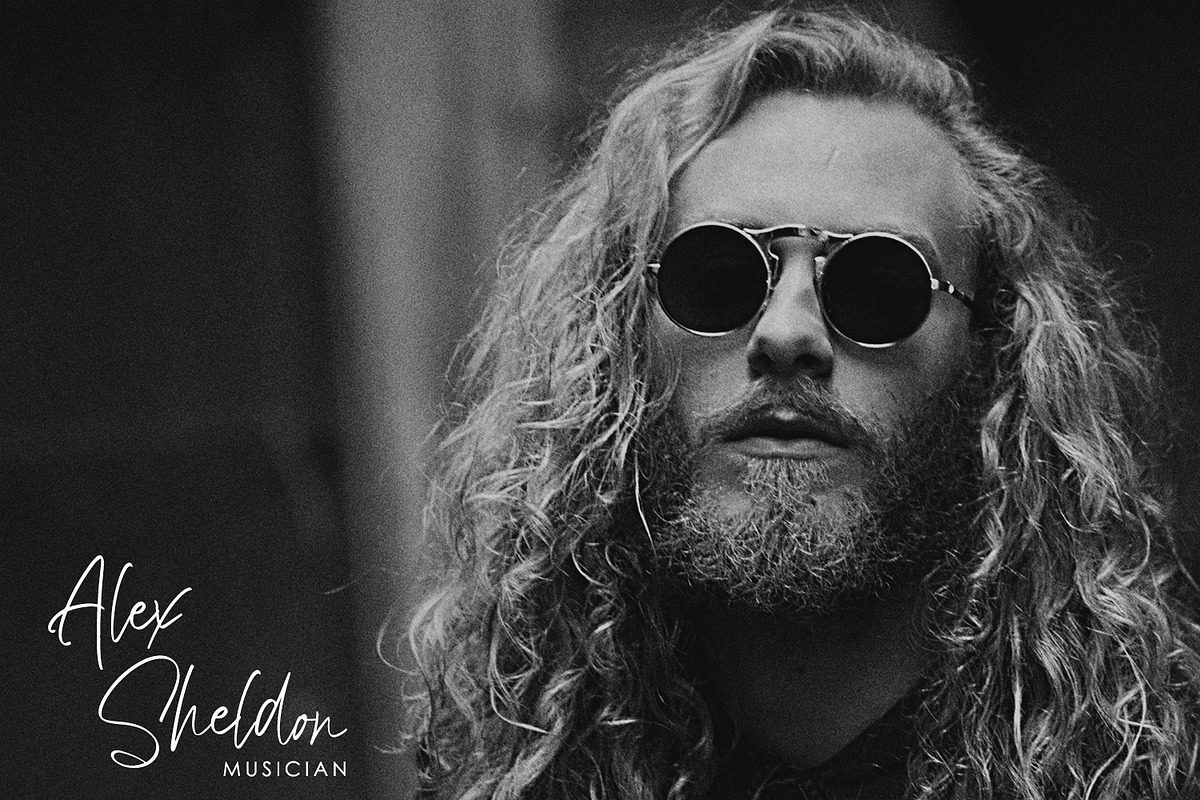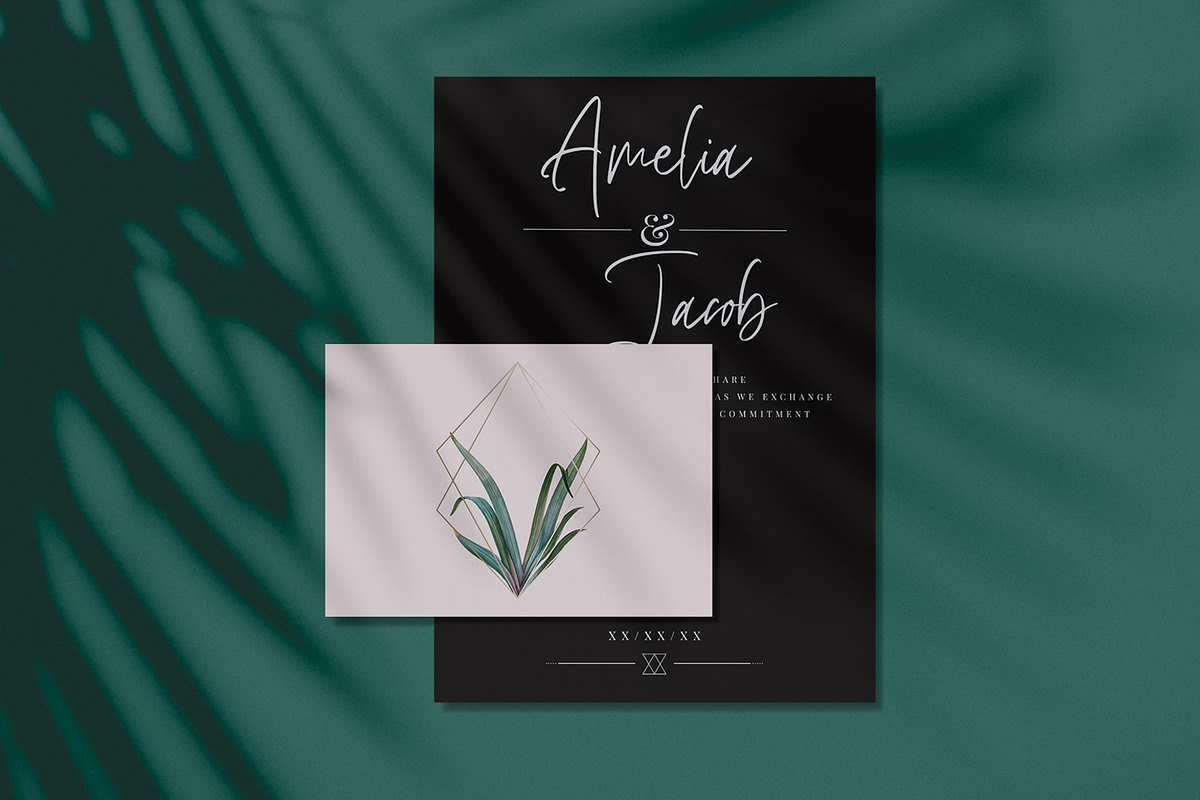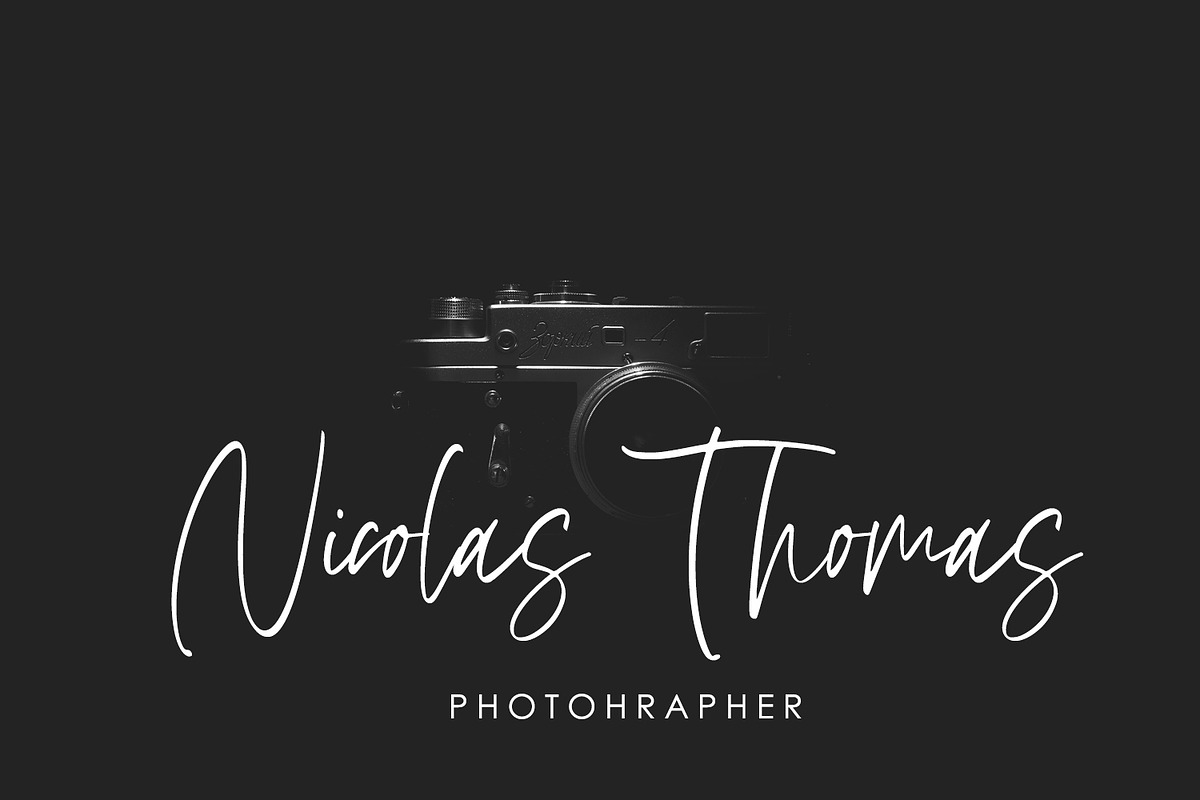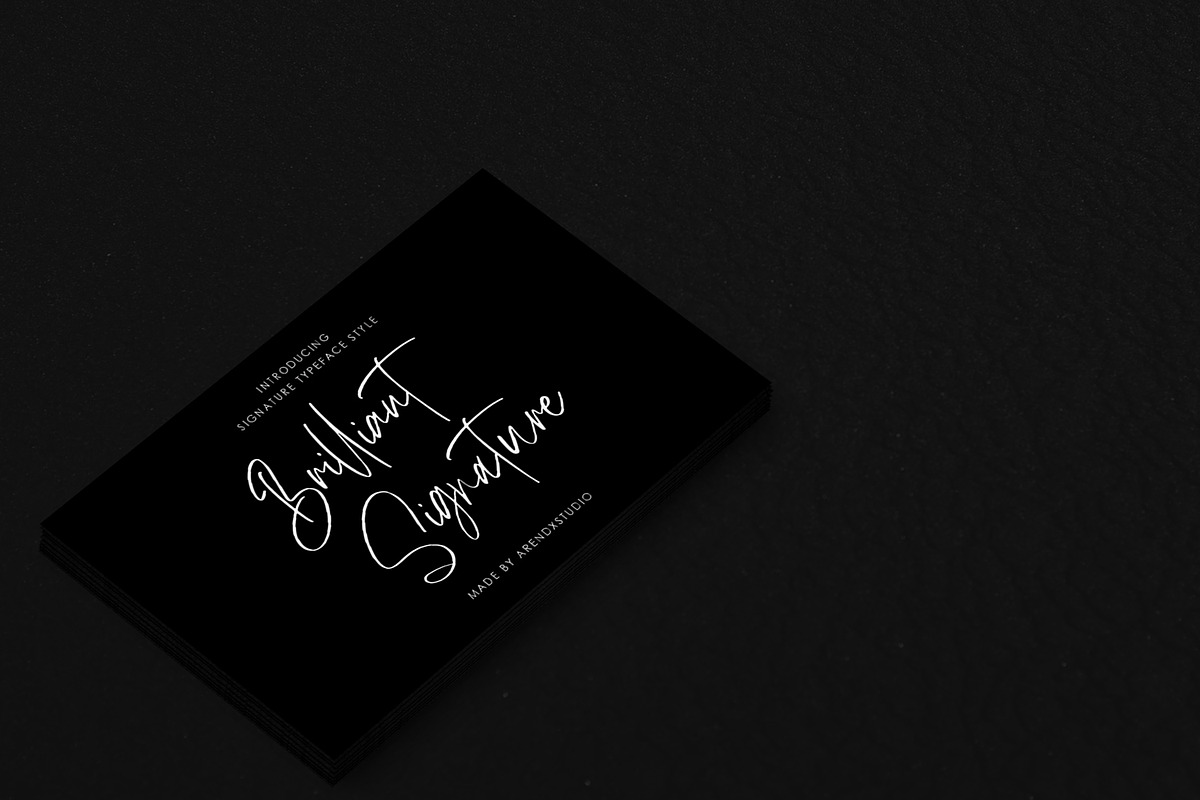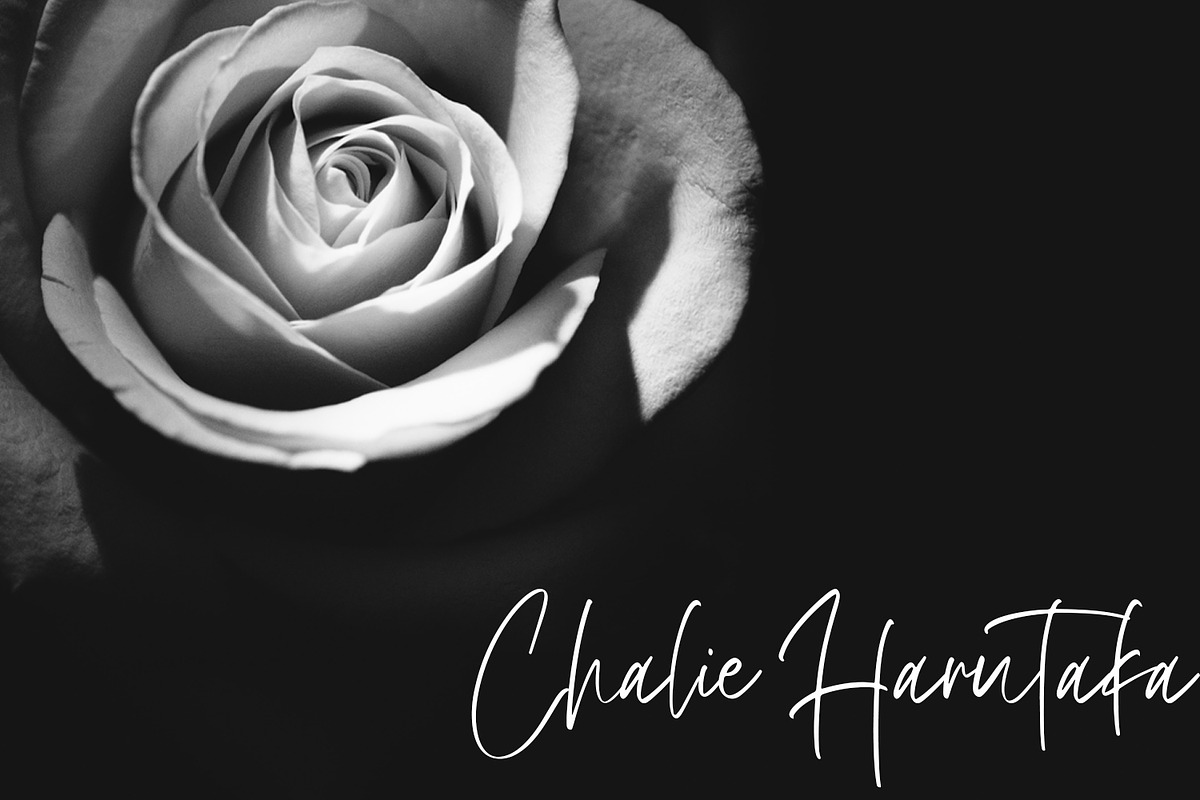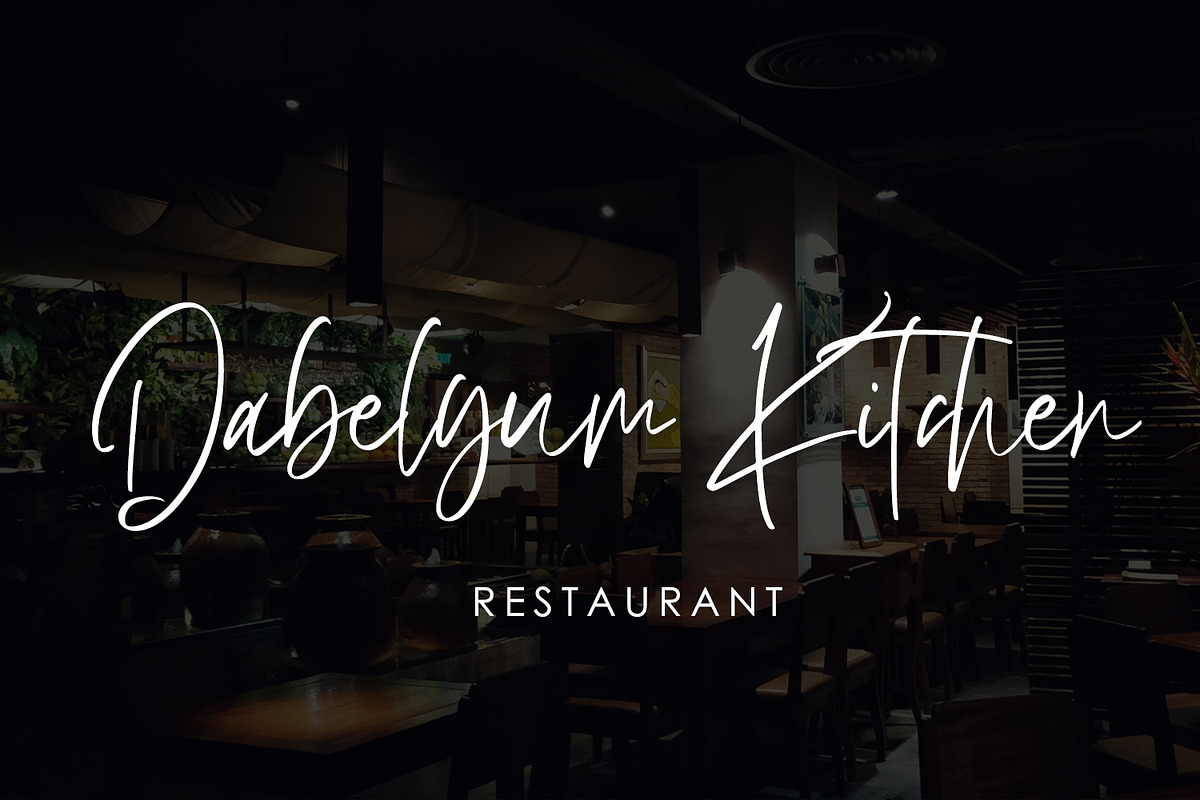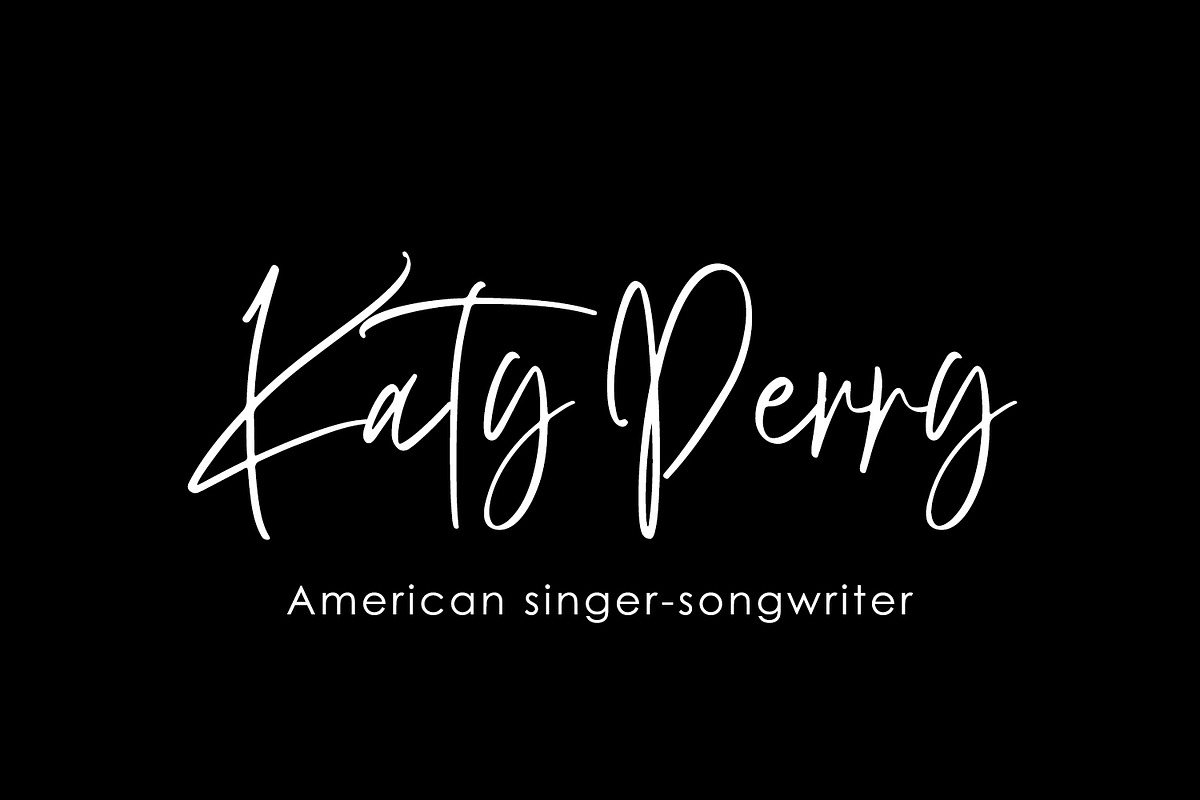
Brilliant Signature - Logotype Font
Introducing Brilliant Signature, a handwritten font which is very elegant and modern for you to use and your design interests be it for logos, branding names, posters, podcasts and so on. This is perfect for you all.